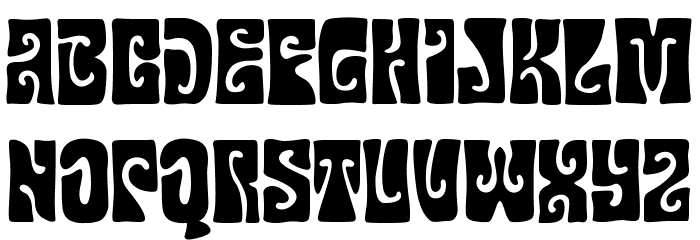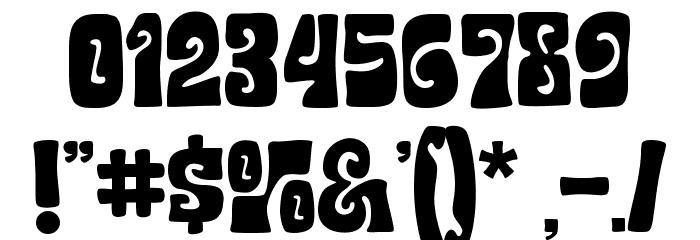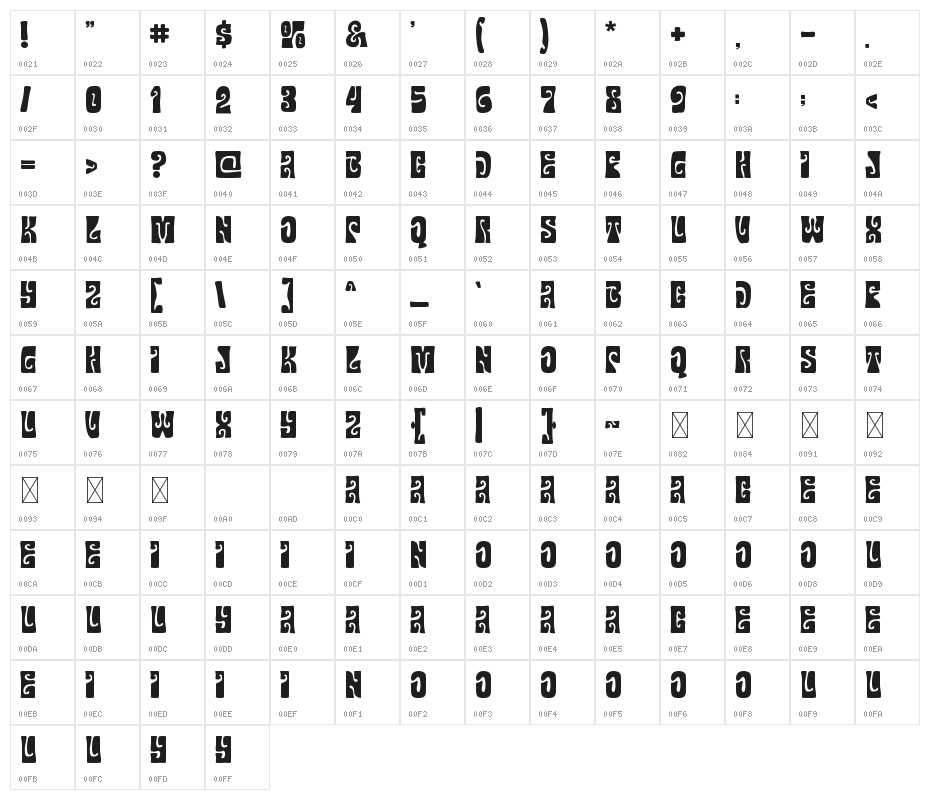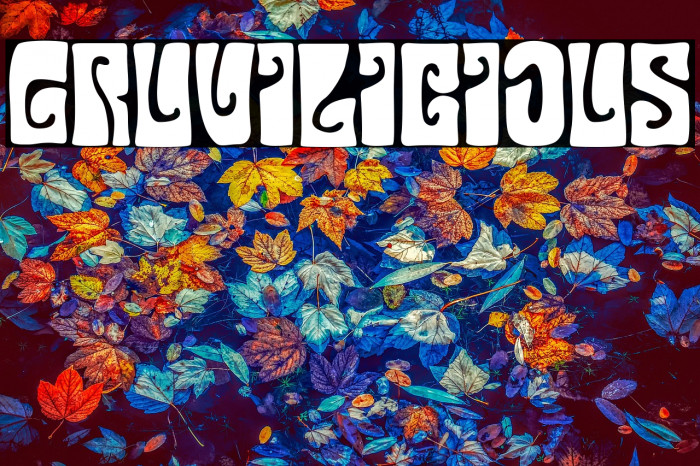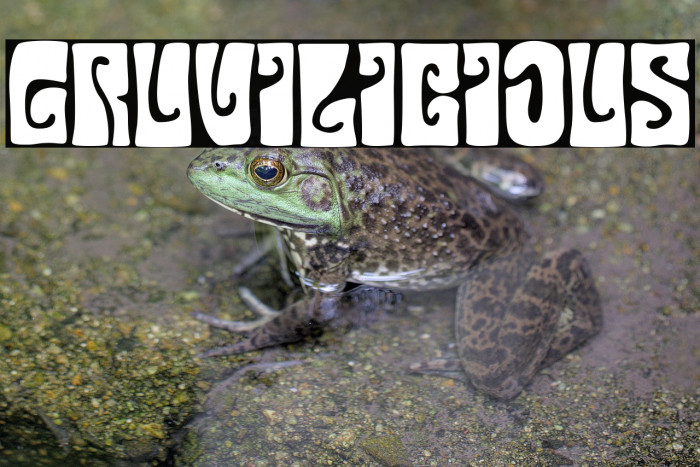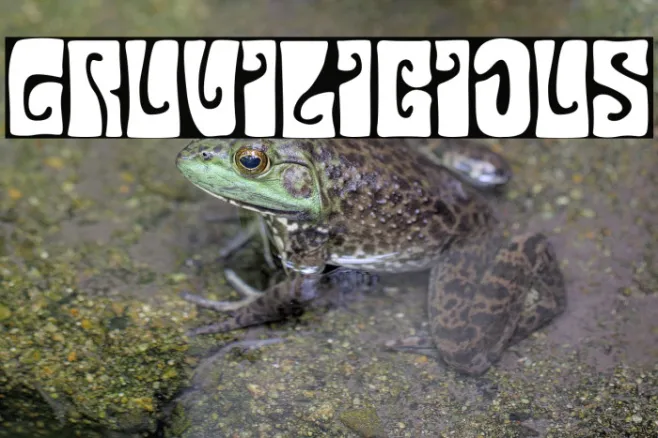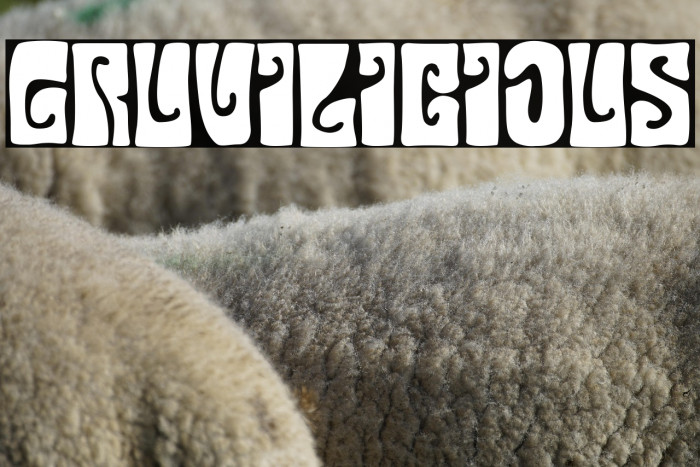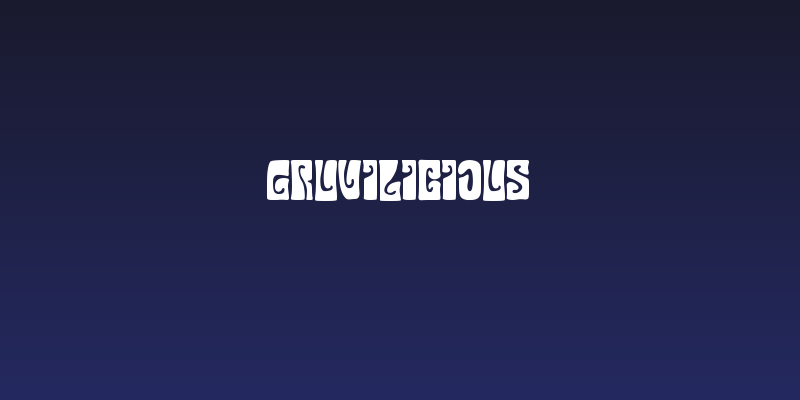
Gruvilicious Font
This font features a bold and playful design with a distinctly retro vibe. The characters are heavily stylized with thick strokes and unique, wavy contours that give it a groovy, psychedelic appearance. The letters are uniformly bold, with a consistent weight throughout, creating a strong visual impact. The numbers and special characters maintain the same whimsical style, ensuring a cohesive look across all text. This font is perfect for capturing the essence of the 1960s and 1970s design aesthetics, making it ideal for projects that aim to evoke nostalgia or a sense of fun.
A bold, retro font with playful, wavy contours and a psychedelic style.
- Proposed Projects: Ideal for retro-themed posters, album covers, event flyers, and branding that seeks a nostalgic or playful touch.
- Overall Style: Vintage